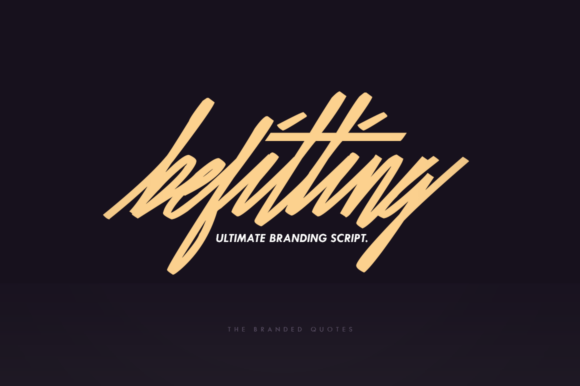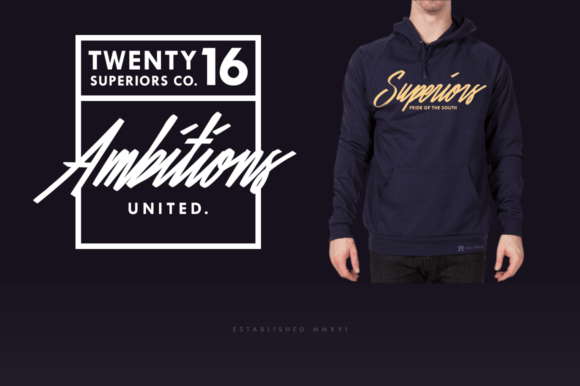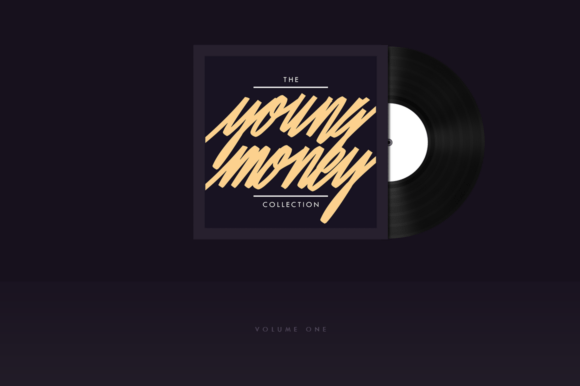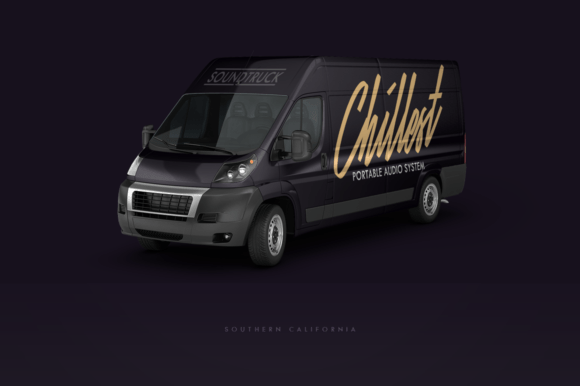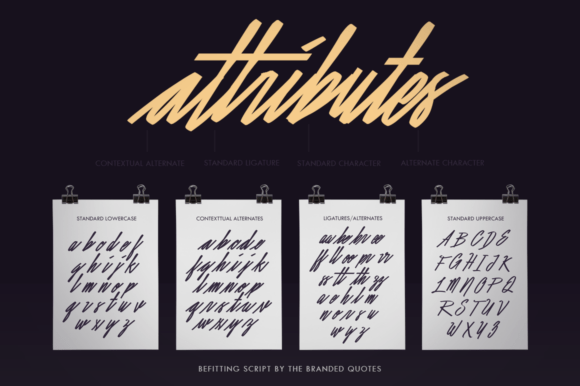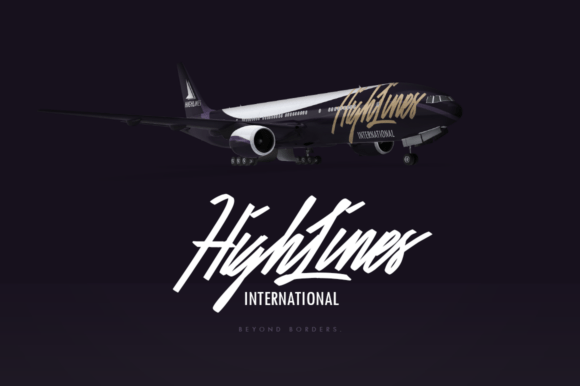
Befitting Font: The Ultimate Cursive Script for Modern Designers
In the world of typography, a well-crafted font can make all the difference in elevating your design to the next level. For designers and crafters looking for a versatile and stylish cursive script, look no further than Befitting Script. This smart font is designed to provide a blueprint for future possibilities, offering a smooth and flowing writing experience that brings your words to life.
What is Befitting Script?
Befitting Script is a carefully crafted cursive program that boasts smart alternates, allowing you to assemble words with ease and precision. Its urban style brush strokes give the font a flexible and striking appearance, making it perfect for a wide range of design applications. Whether you’re working on a branding project, creating hang tags, or designing typographic apparel, Befitting Script is the perfect choice.
Key Features of Befitting Script
• Smart Alternates: Befitting Script features smart alternates that allow you to create a wide range of word combinations with ease.
• Smooth Flow: The font’s smooth and flowing design makes it perfect for creating elegant and sophisticated text.
• Versatility: Befitting Script is incredibly versatile and can be used for a wide range of design applications, from branding and packaging to apparel and accessories.
• Urban Style Brush Strokes: The font’s urban style brush strokes give it a unique and striking appearance that’s sure to grab attention.
Why Choose Befitting Script?
So why choose Befitting Script over other fonts on the market? Here are just a few reasons why designers and crafters are falling in love with this amazing cursive script:
• Ease of Use: Befitting Script is incredibly easy to use, even for those with limited design experience.
• High-Quality Design: The font’s high-quality design ensures that your text looks professional and polished.
• Flexibility: Befitting Script can be used for a wide range of design applications, making it a great investment for designers and crafters.
• Unique Style: The font’s unique urban style brush strokes give it a distinctive look that’s sure to set your design apart.
How to Use Befitting Script in Your Design
Using Befitting Script in your design is easy. Here are a few tips to get you started:
• Pair it with Other Fonts: Befitting Script pairs well with a wide range of fonts, making it easy to create stunning typographic combinations.
• Experiment with Colors: The font’s urban style brush strokes look great in a wide range of colors, from bold and bright to subtle and muted.
• Play with Layouts: Befitting Script can be used in a variety of layouts, from simple and elegant to complex and bold.
In conclusion, Befitting Script is a game-changing cursive program that offers a wide range of possibilities for designers and crafters. Its smart alternates, smooth flow, and urban style brush strokes make it the perfect choice for anyone looking for a versatile and stylish font. Whether you’re working on a branding project, creating hang tags, or designing typographic apparel, Befitting Script is the perfect choice. So why wait? Download Befitting Script today and start bringing your design vision to life!